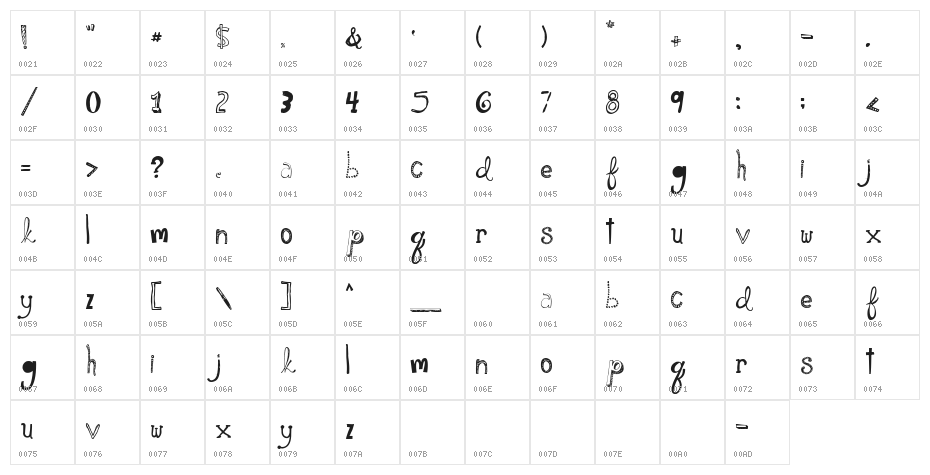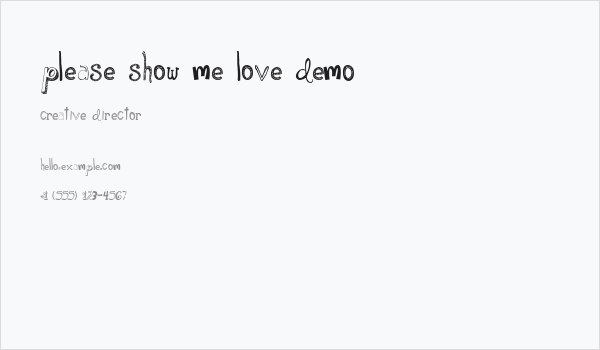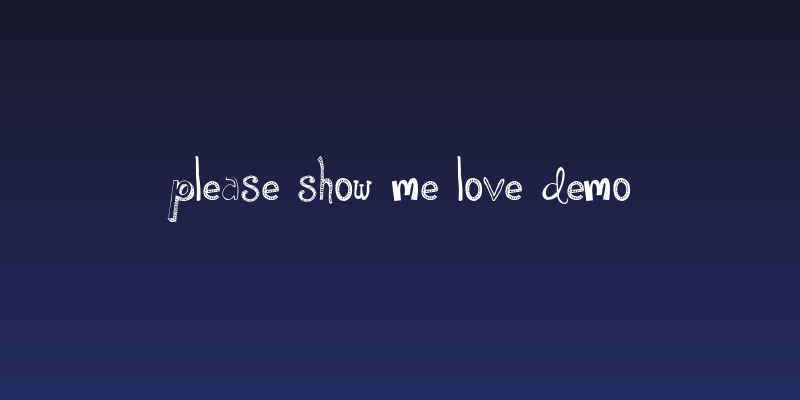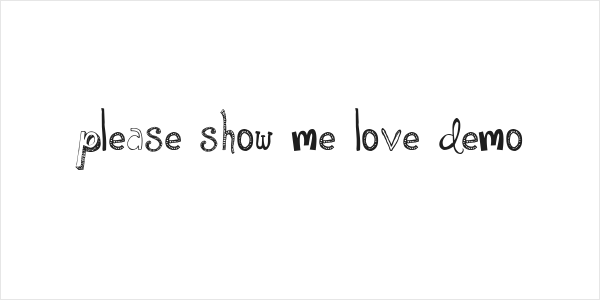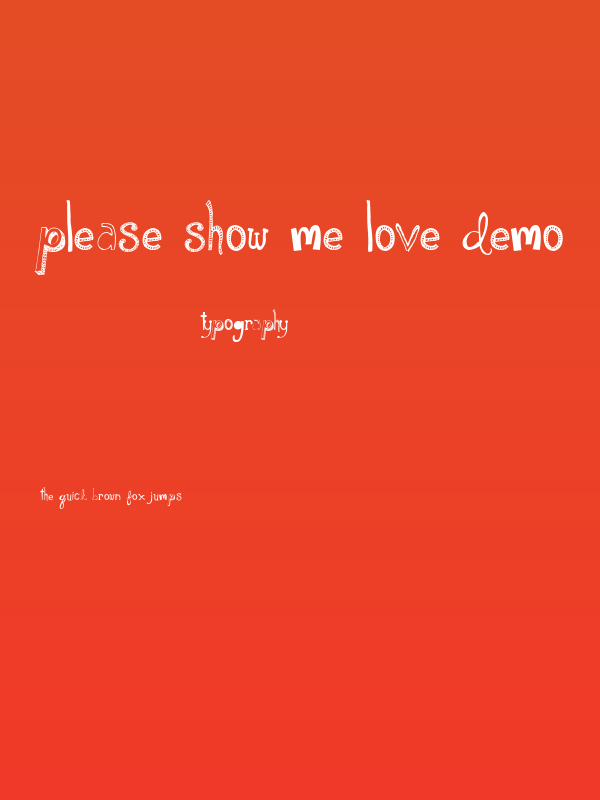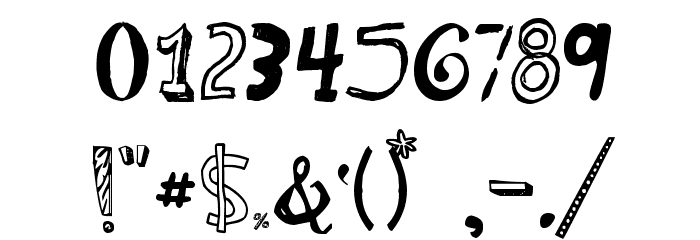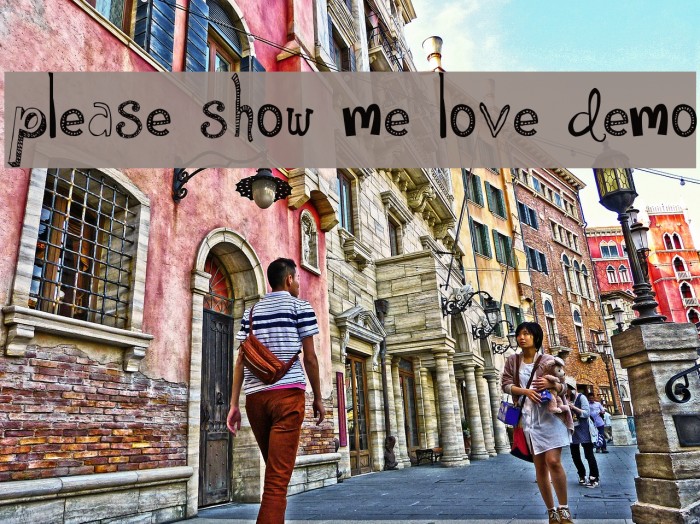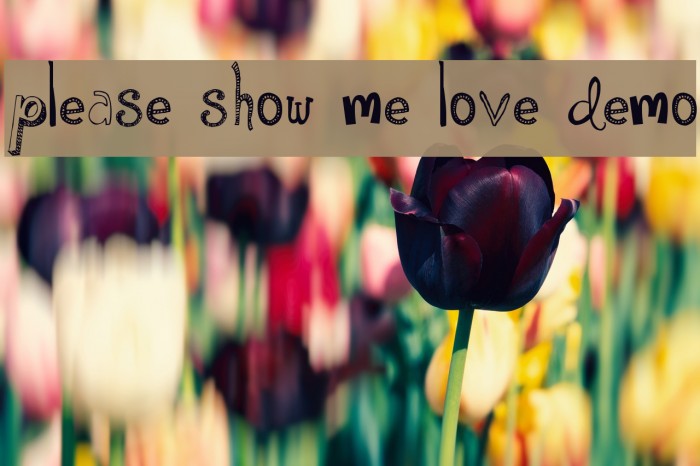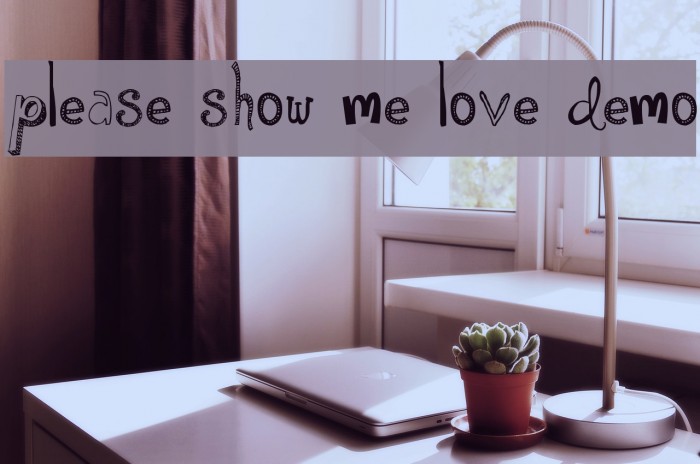
Please Show Me Love DEMO Font
Please Show Me Love DEMO Description
This font is a playful and eclectic typeface that combines various styles and textures within its characters. Each letter has a unique design, featuring elements like dots, stripes, and bold fills, creating a lively and dynamic appearance. The font includes both uppercase and lowercase letters, numbers, and a selection of special characters. Its whimsical and artistic style makes it stand out, offering a creative and fun vibe. The characters are varied in width and weight, adding to the overall quirky and decorative feel. This font is ideal for projects that require a touch of creativity and individuality.
| Use Case | Logos, Posters, Creative projects |
| Proposed Projects | Ideal for children's books, creative posters, playful branding, and artistic invitations. |